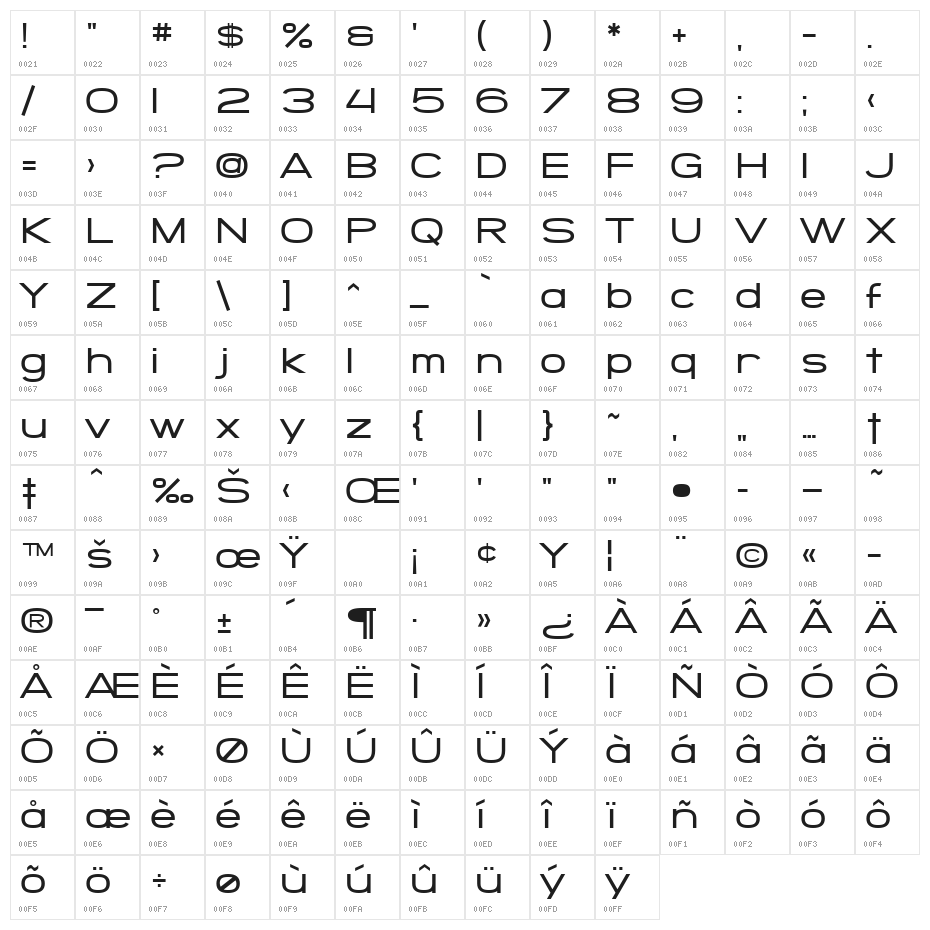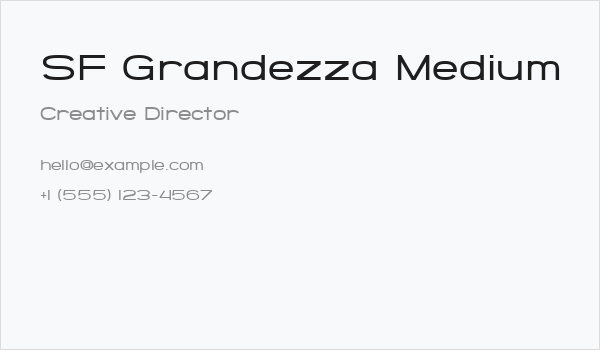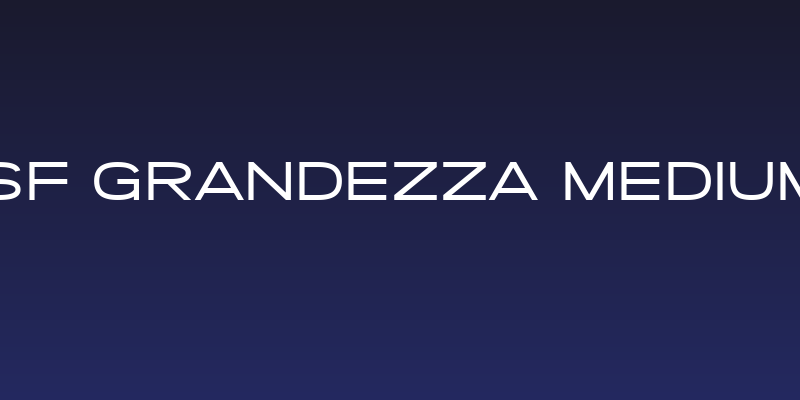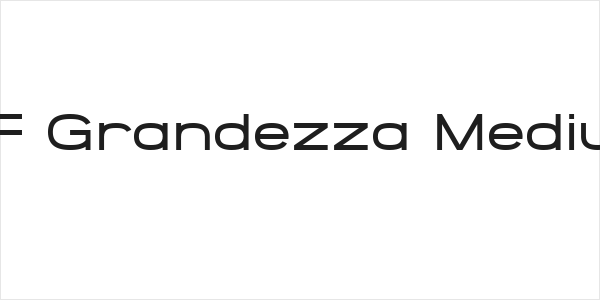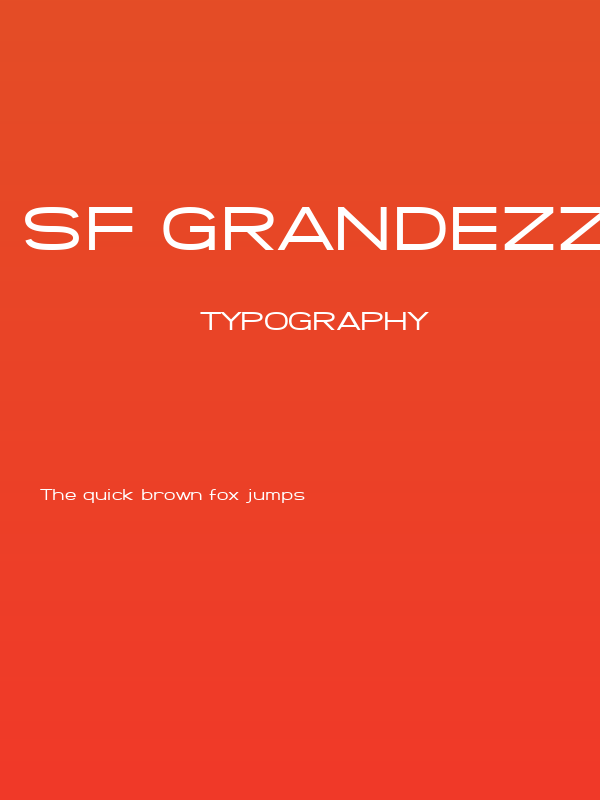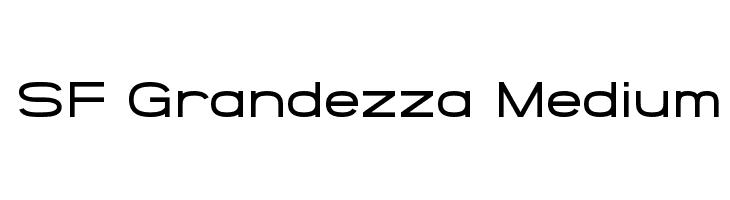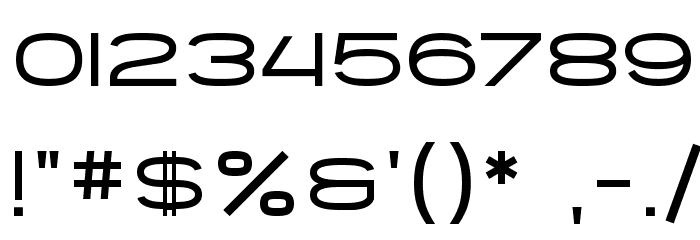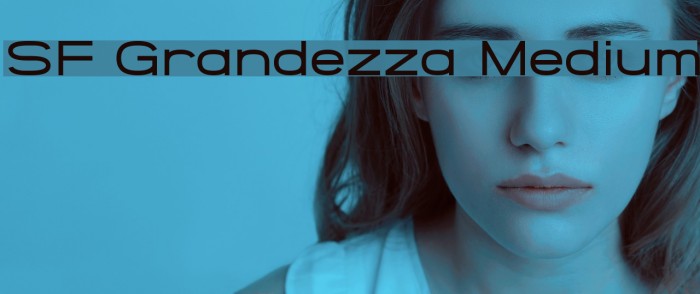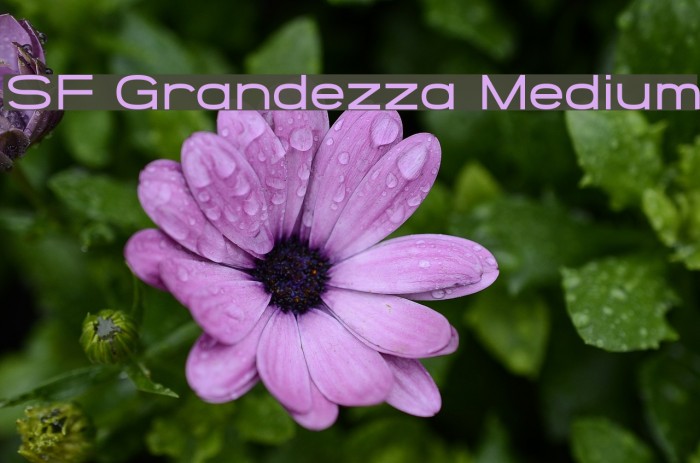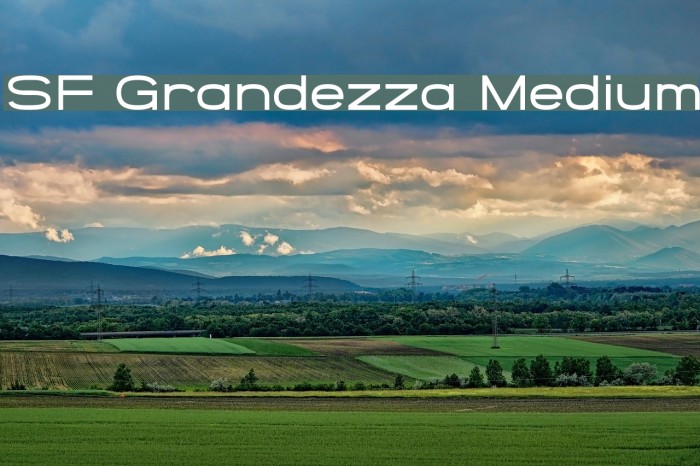
SF Grandezza Medium Font
SF Grandezza Medium Description
This font features a clean and modern sans-serif design, characterized by its geometric shapes and uniform stroke widths. The uppercase letters are bold and assertive, while the lowercase letters maintain a consistent and harmonious appearance. The numerals are clear and easy to read, making them suitable for various applications. Special characters are included, offering versatility for different design needs. The overall aesthetic is sleek and contemporary, making it ideal for projects that require a professional and polished look.
| Proposed Projects | Ideal for branding, corporate materials, digital interfaces, and editorial design. |